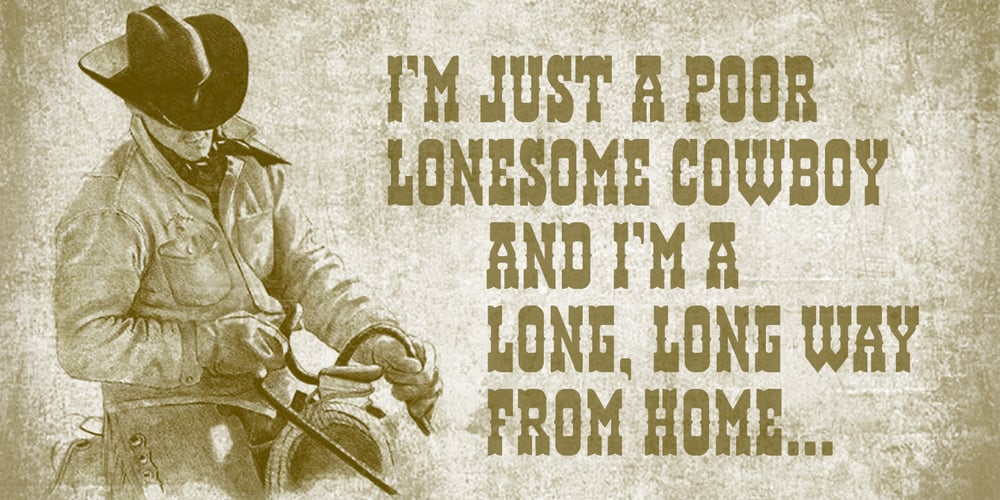
Helldorado Pro Font Family was designed by Roger S. Nelsson, Levente Halmos and published by CheapProFonts. Helldorado Pro contains 1 styles and family package options. A classic “wild west” or circus type font – perfect for oldstyle posters and anything needing an antiquated look. I have switched a few letters around, and made the uppercase M narrower – and then kerned it and expanded the character set. “Howdy pardiner!” ALL fonts from CheapProFonts have very extensive language support: They contain some unusual diacritic letters (some of which are contained in the Latin Extended-B Unicode block) supporting: Cornish, Filipino (Tagalog), Guarani, Luxembourgian, Malagasy, Romanian, Ulithian and Welsh. They also contain all glyphs in the Latin Extended-A Unicode block (which among others cover the Central European and Baltic areas) supporting: Afrikaans, Belarusian (Lacinka), Bosnian, Catalan, Chichewa, Croatian, Czech, Dutch, Esperanto, Greenlandic, Hungarian, Kashubian, Kurdish (Kurmanji), Latvian, Lithuanian, Maltese, Maori, Polish, Saami (Inari), Saami (North), Serbian (latin), Slovak(ian), Slovene, Sorbian (Lower), Sorbian (Upper), Turkish and Turkmen. And they of course contain all the usual “western” glyphs supporting: Albanian, Basque, Breton, Chamorro, Danish, Estonian, Faroese, Finnish, French, Frisian, Galican, German, Icelandic, Indonesian, Irish (Gaelic), Italian, Northern Sotho, Norwegian, Occitan, Portuguese, Rhaeto-Romance, Sami (Lule), Sami (South), Scots (Gaelic), Spanish, Swedish, Tswana, Walloon and Yapese.